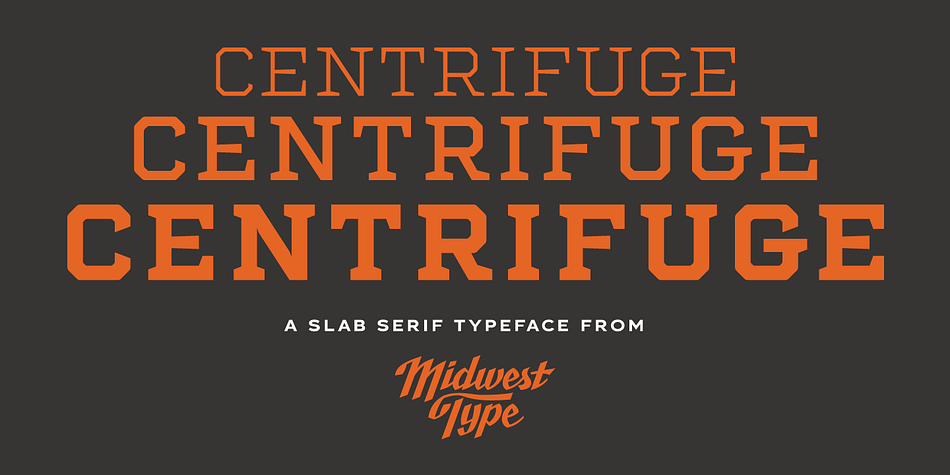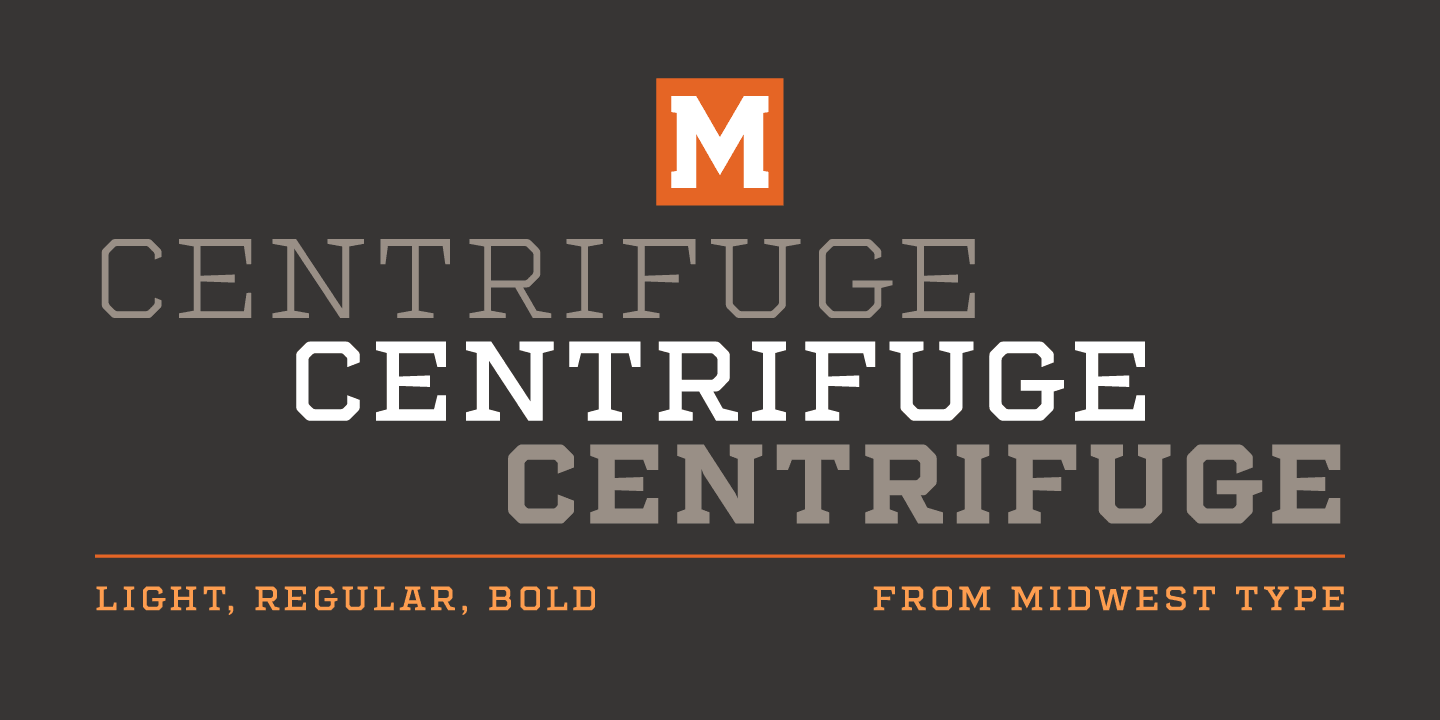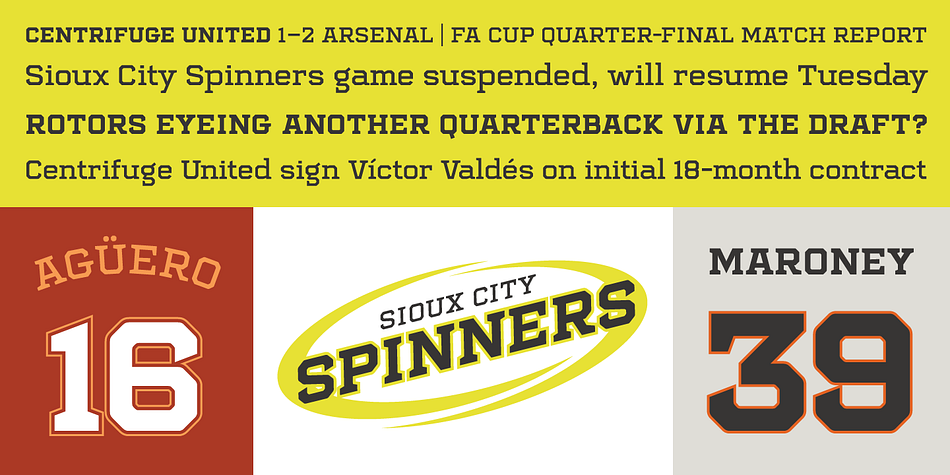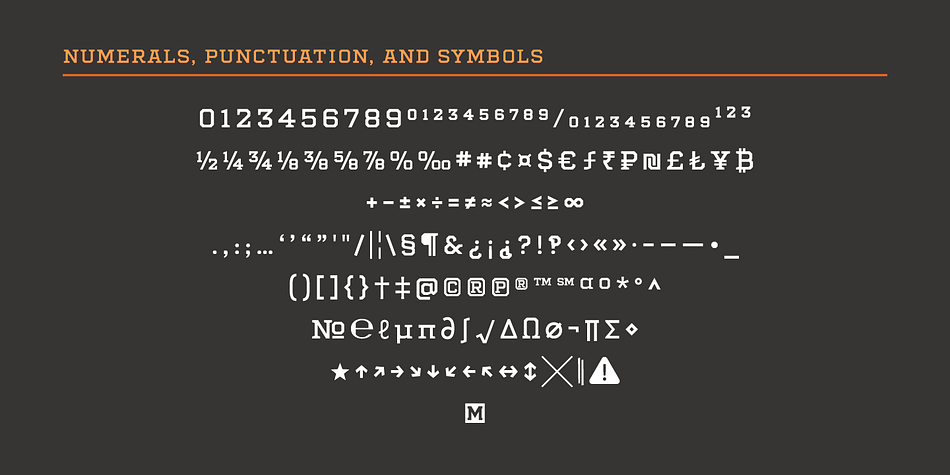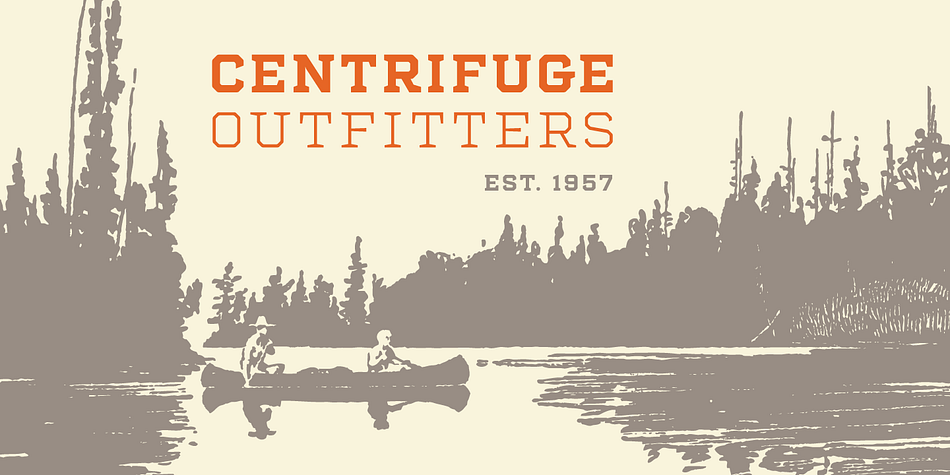
Designed by Jesse R. Ewing, Centrifuge is a slab serif font family. This typeface has three styles and was published by Midwest Type.
Originally inspired by manufacturer badges on old laboratory equipment, Centrifuge sports soft geometric shapes, wedge serifs, and sharply-angled terminals. Quirky but versatile, Centrifuge can appear anywhere from formal and elegant to funky and chunky depending on how it’s set. Centrifuge is suitable for short-form text and headlines but really sings in an all-caps setting with generous tracking.